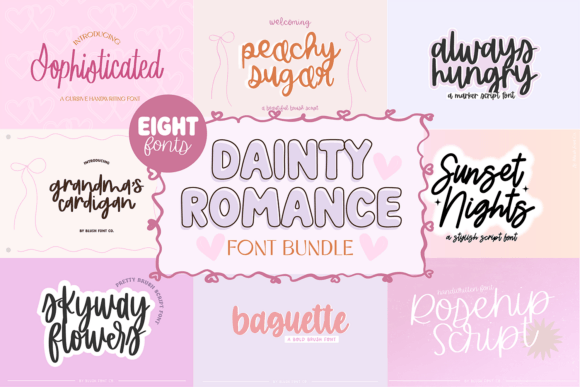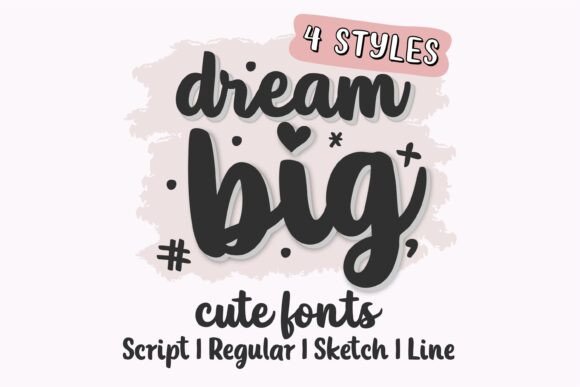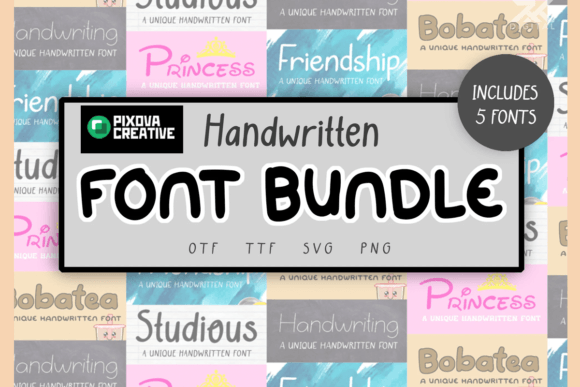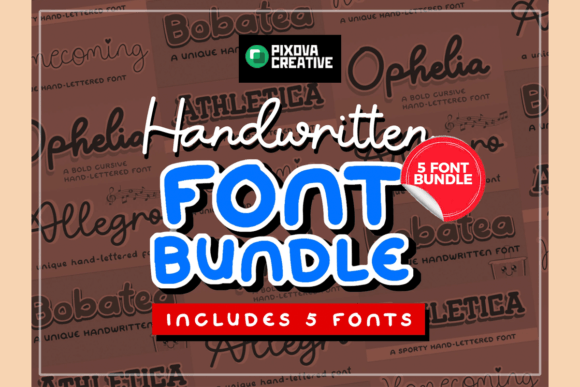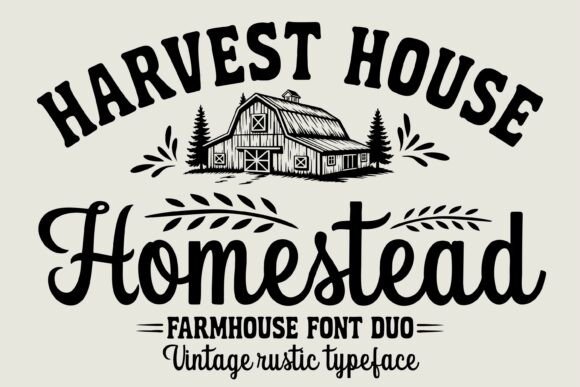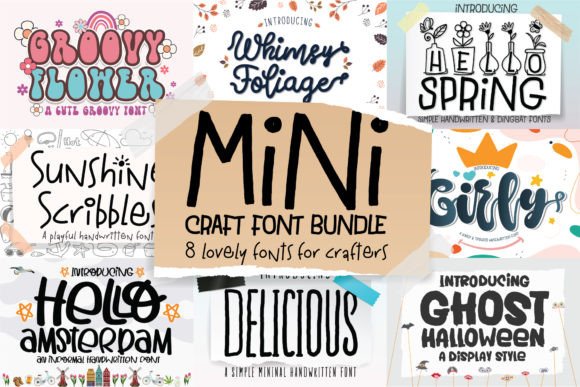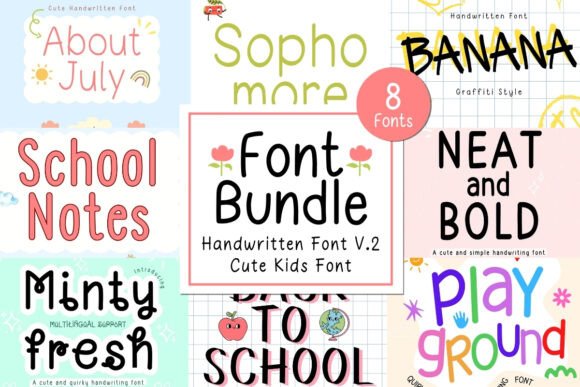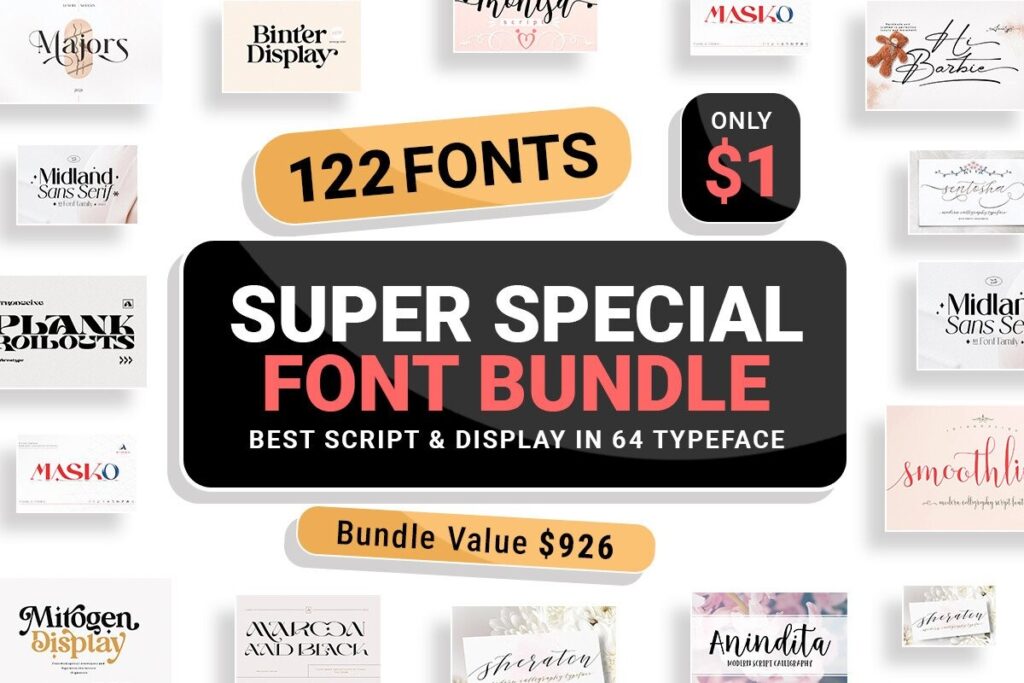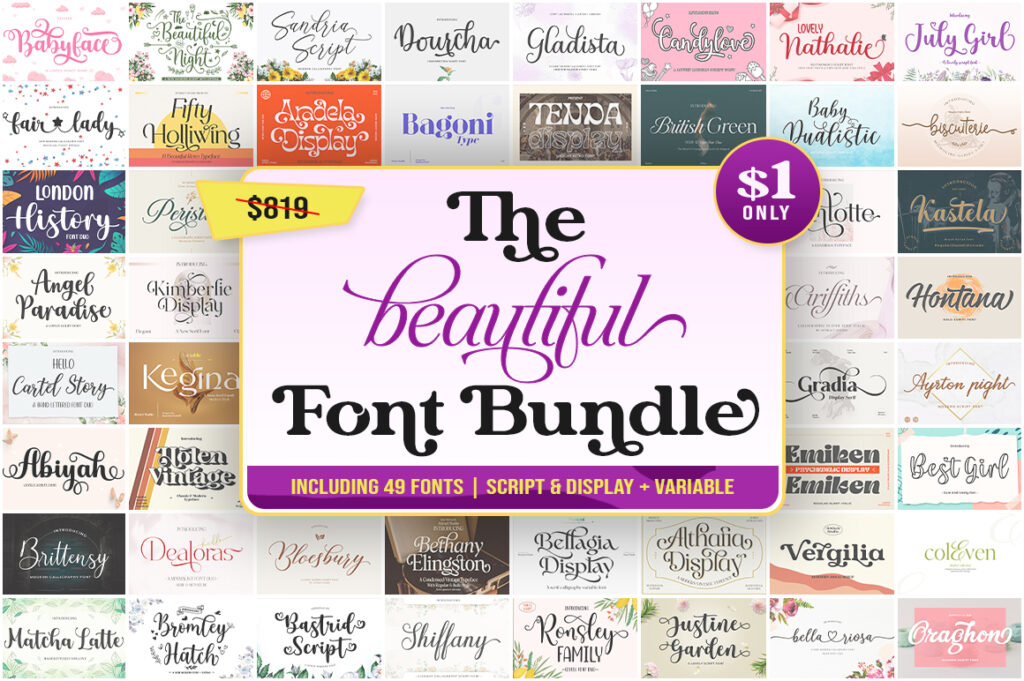
Fonts for branding: 20 bundles to elevate your font mixing game
We have all been there staring at a font library, knowing which typeface we love but unsure which one to pair it with. The secret to professional design work is not just in selecting a single font but in the thoughtful art of font mixing.
When done right, combining typefaces creates contrast, guides the reader’s eye, and builds a distinct personality that standalone fonts simply cannot achieve. This skill is essential for creating memorable fonts for branding that tell a cohesive story.
In this article, I am sharing a curated set of foolproof font combinations. These are the pairings I rely on to create depth and clarity, guaranteed to elevate your next creative project.
Homestead Font
One of my current favorite discoveries is the Homestead Font duo. This set is a perfect example of rustic charm meeting modern functionality. It features a sturdy vintage serif that commands attention paired with a silky, flowing script that adds a personal touch. I love how effortlessly they work together for anything from farmhouse signage to product packaging.
The beauty of this pairing is its versatility. Use the serif for bold headlines and the script for names or heartfelt quotes. Whether you are designing labels for a farmers market brand or creating custom wall art, this bundle delivers that authentic, handcrafted aesthetic we all strive for.
Mega Notebook Handwriting Bundle Font
Sometimes a project calls for something more playful and personal. That is where the Mega Notebook Handwriting Bundle comes in. This collection features 40 unique handwriting-inspired fonts that bring an authentic, human touch to digital design.
Stop settling for stiff digital layouts. This bundle unlocks font mixing possibilities that breathe life into your work. Pair a flowing cursive with a confident bold script and watch your planners, journals, and branding projects transform. The result? Designs that feel organic, handcrafted, and full of warmth.
Whether you are designing for GoodNotes or creating whimsical social media graphics, this bundle gives you the flexibility to express different moods. Use a flowy script for headers and a more casual handwriting font for body text the contrast is simply delightful.
Neat & Clean Handwritten Font Bundle V.1 Font
Not every handwritten font has to be wild and expressive. Sometimes you need that perfect balance between personality and legibility. The Neat & Clean Handwritten Font Bundle V.1 delivers exactly that ten unique fonts that feel both playful and polished.
The beauty of this set for font mixing is how naturally the styles harmonize. Team a crisp all-caps font with a bouncy script for dynamic contrast, or mix two handwriting textures to create depth in journals and planners. The font pairing possibilities stay fresh and contemporary without ever crossing into messy territory.
I have been using these for GoodNotes templates and Canva social graphics lately. They strike that sweet spot being approachable enough for personal journaling yet clean enough for client work. Perfect for back-to-school projects, kid products, or any design that needs a warm, human touch without sacrificing readability.
The Cute Handwriting Bundle Font
Sometimes you just want fonts that feel genuinely happy. The Cute Handwriting Bundle delivers exactly that twelve exclusive handwritten fonts you will not find anywhere else. Each one has its own personality, from playful and bouncy to sweet and delicate.
These fonts share a handmade quality, they layer together beautifully. Try pairing a chunky marker style with a delicate cursive for your journal covers or mix two different scripts for quotes and headers. The font pairing combinations feel cohesive yet varied, giving your layouts that trendy, scrapbook-inspired aesthetic.
These are perfect for digital planning, kid-friendly projects, or any design that needs a dose of warmth. Since they are exclusive to this bundle, your work will stand out with a look you simply cannot replicate using standard fonts.
Neat & Clean Handwritten Bundle V.2 Font
Great news for fans of clean design the Neat & Clean Handwritten Bundle V.2 is here. This follow-up collection brings eight fresh handwritten fonts that strike that perfect balance between playful and polished.
You can pair a structured sans-style handwritten font with a flowy script for contrast, or layer two different textures to create depth in your layouts. The font pairing possibilities feel endless yet always intentional, giving your designs that curated, modern look.
Great typography is rarely about a single font. It is about the magic that happens when you pair them together the contrast, the harmony, the personality. I hope this curated selection of bundles inspires your next font mixing adventure and helps you create something truly memorable.